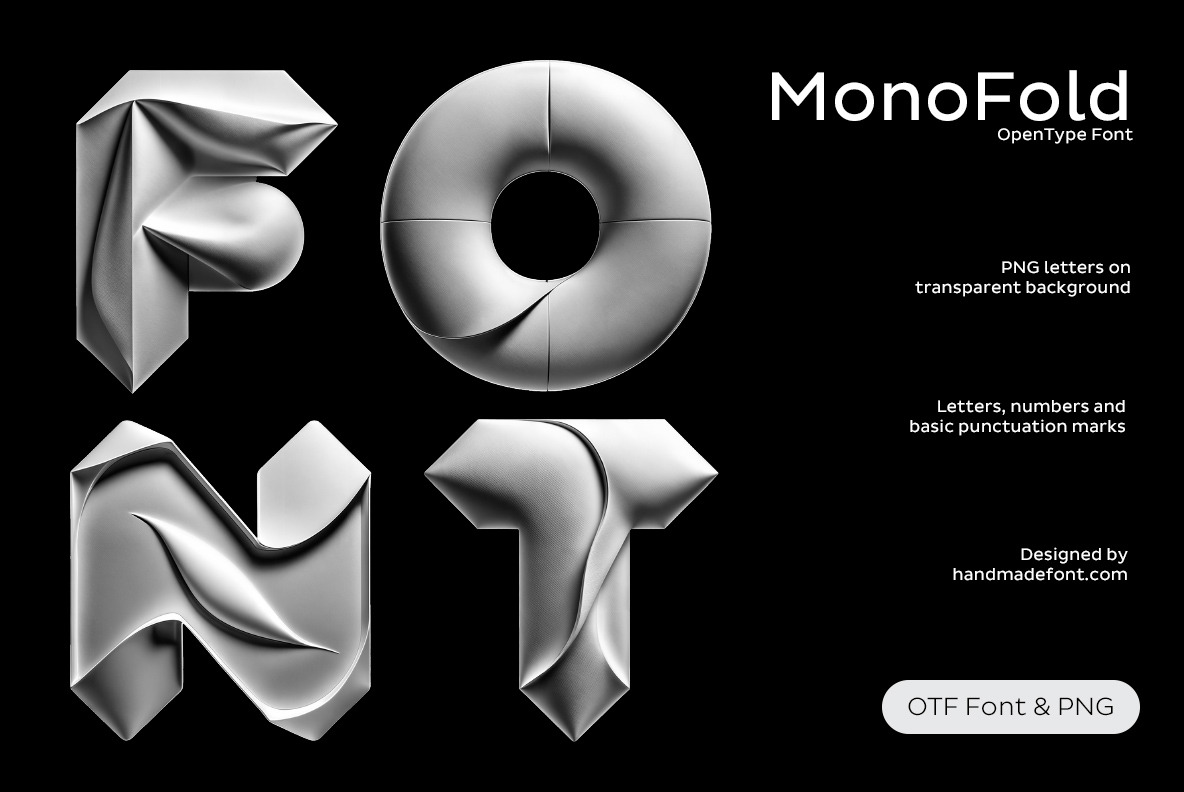
MonoFold Font
MonoFold Font is what happens when origami crashes a futuristic fashion show—and steals the spotlight. With slick folds, bold curves, and a serious sci-fi swagger, this font looks like it was sculpted by a robot with an art degree. Each letter is a mini masterpiece, folded tighter than your laundry on laundry day. It's got style, it's got presence, and it says, “Yeah, I’m a font—but make it fashion.” You get OTF and PNG formats, transparent backgrounds, and a whole alphabet ready to strut across your designs. Designed by the type wizards at Handmadefont.com, MonoFold isn’t just a font—it’s folded fabulousness.
A high definition OpenType Font. Contains uppercase characters, numerals and basic punctuation. (Draw height roughly 800 pixels). All letters and glyphs that comprises this font you can see on the preview.